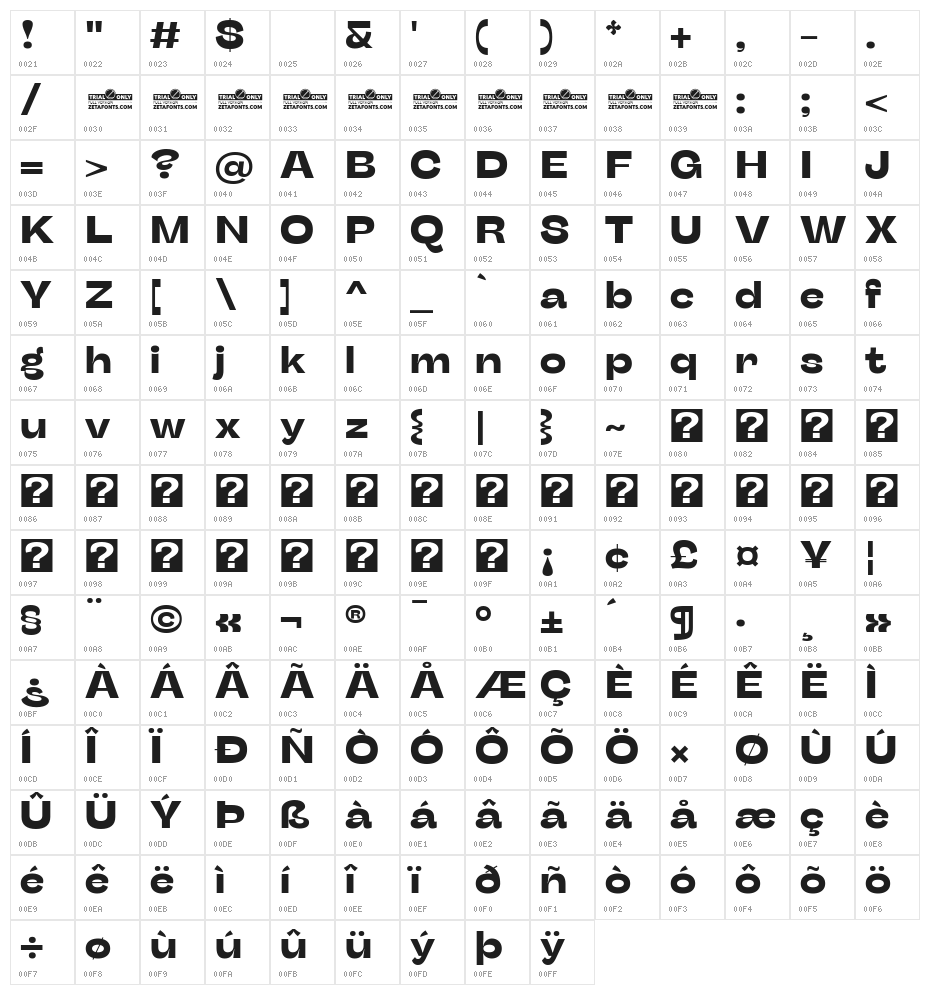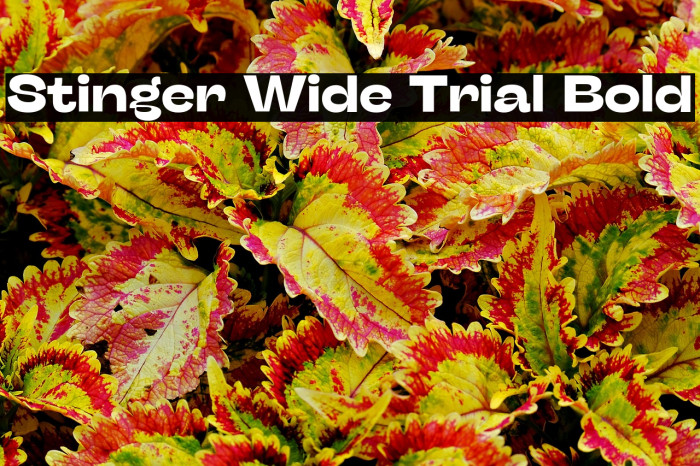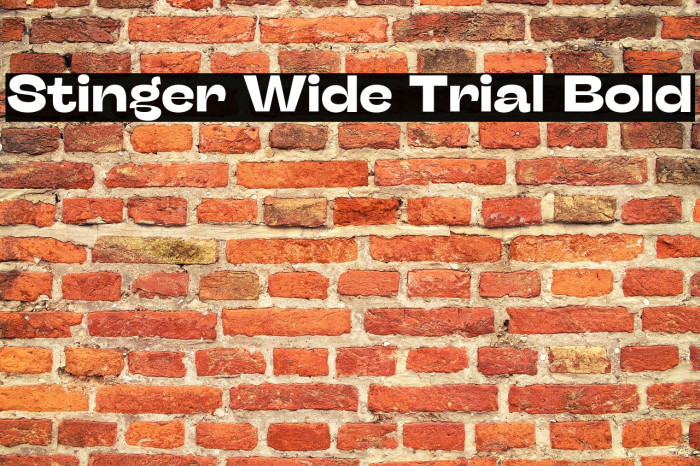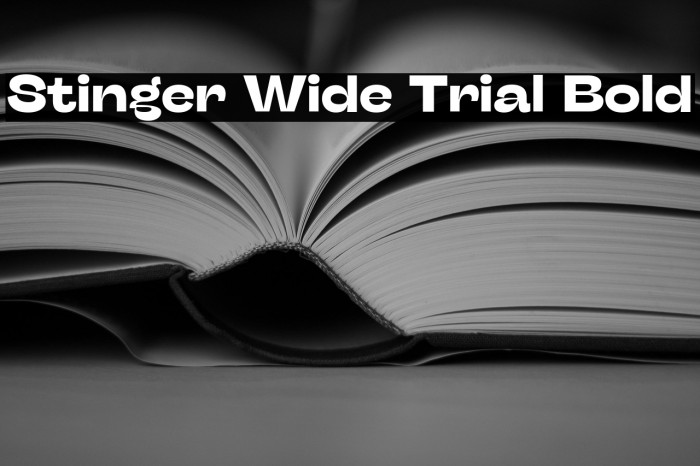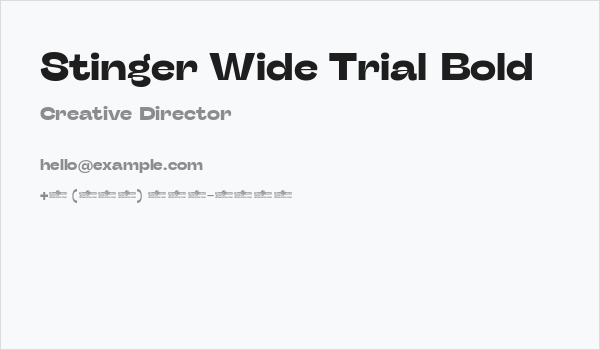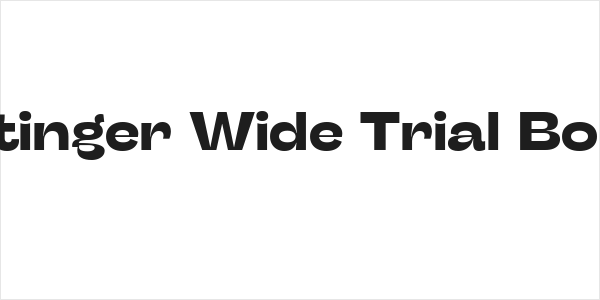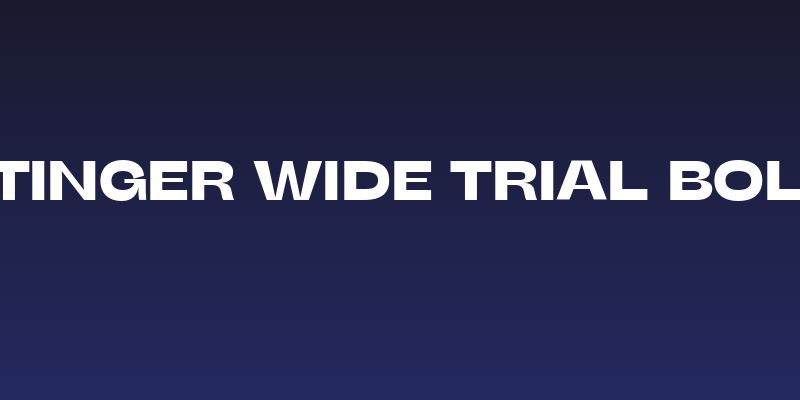
Stinger Wide Trial Bold Font
Stinger Wide Trial Bold Description
This typeface features a bold and wide design, characterized by its strong geometric shapes and clean lines. The uppercase and lowercase letters maintain a consistent width, giving the font a uniform appearance. The characters are well-balanced, with a modern aesthetic that emphasizes clarity and readability. The numerals and special characters follow the same bold style, ensuring consistency across all text elements. This font is designed to make a strong visual impact, suitable for various design applications.